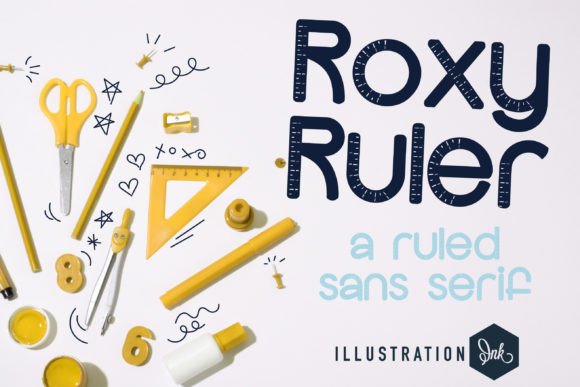
Unleash your inner legal eagle with Roxy Ruler Font, the quintessential sans serif font designed to elevate your law school projects to new heights of excellence. Each letter adorned with a precise ruler adds a touch of sophistication and order to your documents, helping you make a powerful and lasting impression.
Picture this: you're crafting a persuasive legal brief, and your words dance harmoniously across the page, guided by the unwavering lines of Roxy Ruler. The clean, crisp structure of each letter commands attention, ensuring that your arguments are presented with clarity and impact.
Roxy Ruler Font is not just a visual delight; it's a strategic tool that enhances the readability and comprehension of your legal documents. The carefully crafted curves and angles guide the reader's eye effortlessly through paragraphs, highlighting key points and facilitating a smooth flow of information.
But that's not all. Roxy Ruler Font goes beyond the courtroom, seamlessly adapting to a wide range of creative projects. Whether you're designing brochures, presentations, or social media graphics, Roxy Ruler adds a touch of legal charm that sets your work apart from the ordinary.